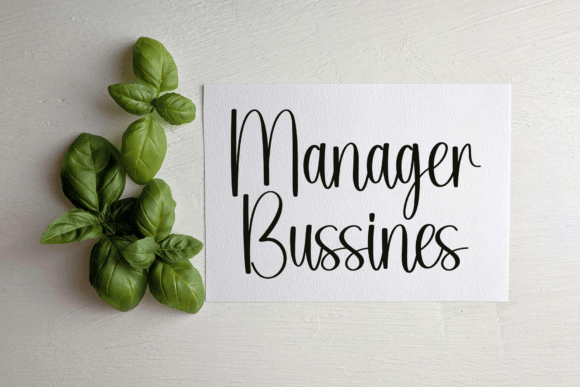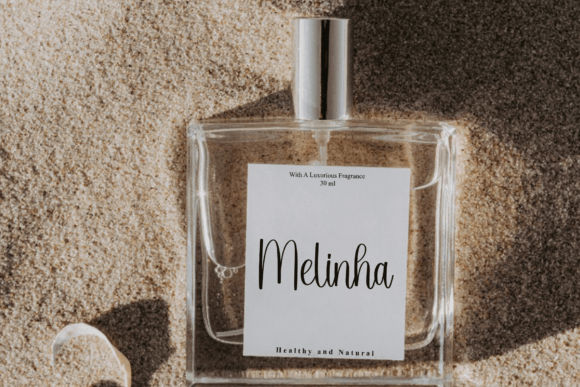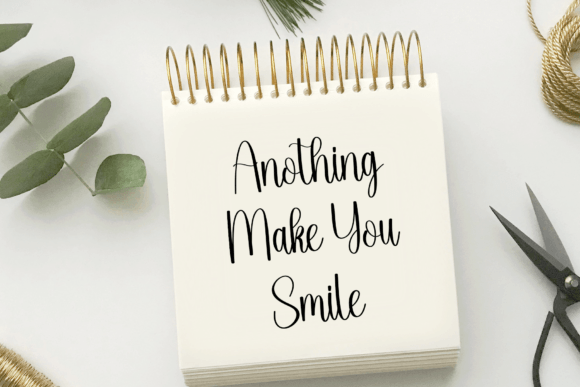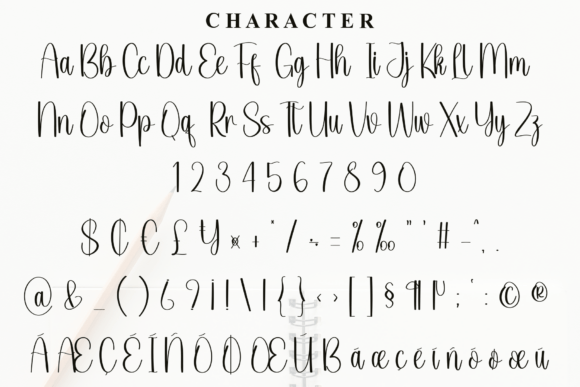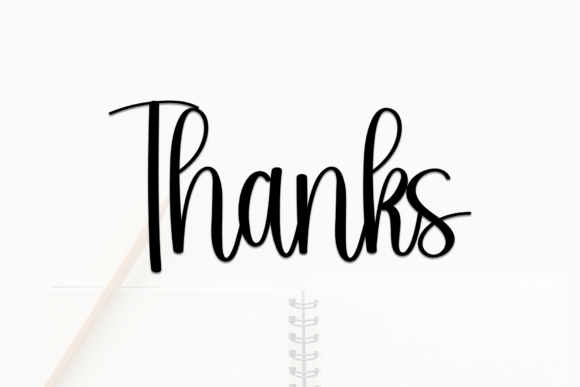
Introduction to Onderfull Font
Have you ever sat at your desk, surrounded by scribbled notes and scraps of paper, searching for the perfect font to bring your creative project to life? You know, that moment when everything else fades away and all you can think about is finding the perfect design resource to match your vision. For designers, this is a familiar feeling – one that often leads to hours of scrolling through font libraries and testing out different styles.
But what if you could find a font that perfectly captures the essence of your creative idea? One that exudes a sense of luxury and elegance, yet still feels casual and approachable? Enter the Onderfull Font, a beautiful handwritten font that looks like it was drawn with a marker. With its high-quality design and transparent background, this font is the perfect addition to any creative project.
Key Features of Onderfull Font
- High-quality design resource ideal for creative projects requiring unique typography
- Transparent background, allowing for seamless integration into various design elements
- Unique characteristics include bold and elegant lines, making it perfect for titles and headings
- Designed to work well with a wide range of colors, ensuring versatility in various design contexts
Honest Review: Onderfull Font
I recently came across the Onderfull Font, a unique and creative design resource that has caught my attention. As a designer, I’m always on the lookout for high-quality fonts that can elevate my projects and help me express my ideas more effectively.
Here are some things that work well with the Onderfull Font:
- ✨ Unique and creative style that sets it apart from other fonts
- ✨ High quality and crisp typography, making it perfect for both digital and print projects
- ✨ Transparent background, allowing for easy customization and layering
- ⚠️ Limited character set and support for certain languages
- ⚠️ Not suitable for large-scale or complex projects due to its unique and creative style
Overall, I’m impressed with the Onderfull Font and would definitely consider using it for my creative projects. Its unique style and high-quality typography make it a valuable addition to any designer’s toolkit. With some careful consideration of its limitations, I think it has the potential to become a go-to font for designers looking to add some creativity and flair to their work.
Onderfull Font
Onderfull Font is a high-quality design resource ideal for creative projects that require a unique touch. This free download is perfect for designers and artists looking to elevate their work with a professional, yet distinctive font.
Tips for Getting the Most Out of Onderfull Font
For optimal results, use Onderfull Font on a transparent background to really make it stand out. Experiment with different font sizes and styles to find the perfect look for your creative project.
Onderfull Font is perfect for creating eye-catching logos, branding materials, and social media graphics. Its unique design makes it ideal for designers looking to add a touch of sophistication to their work.